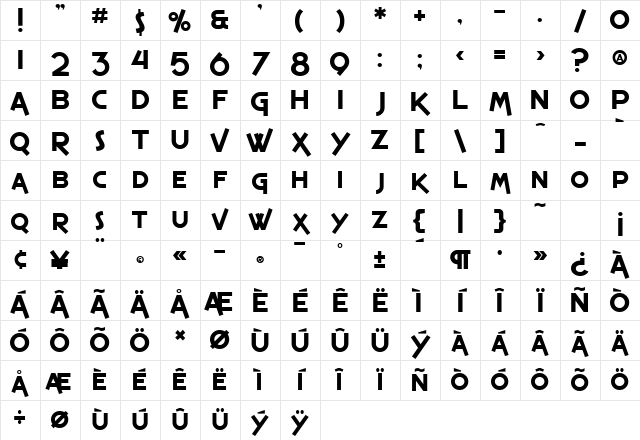
SF Espresso Shack Regular Free Font
SF Espresso Shack Regular
Design Context for SF Espresso Shack
SF Espresso Shack is a composed and adaptable typeface that performs quietly and consistently across a wide range of design contexts.